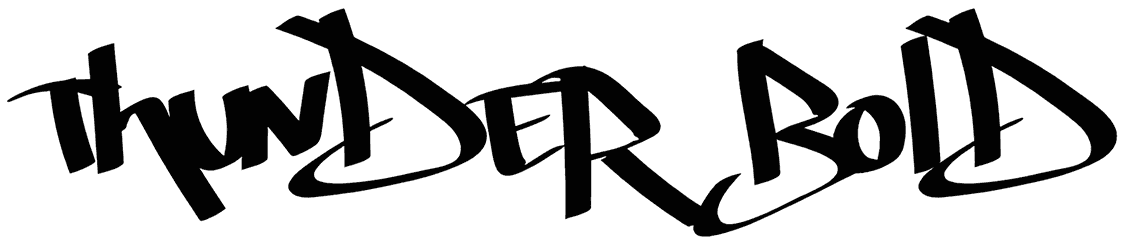
Thunder Bold Font
Young audiences have different expectations of a graphic designer, for example, they expect you to try a script font like Thunder Bold to design street posters, digital banners, prints on clothes, and stickers.
This graffiti font, with its urban look, can easily convey a sense of youth, freshness, grunge, and jauntiness, despite not having lowercase letters and good readability.